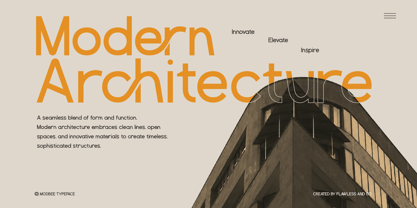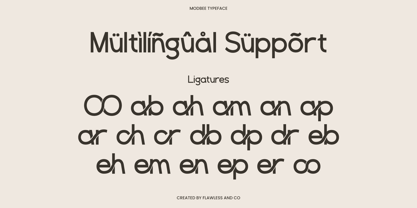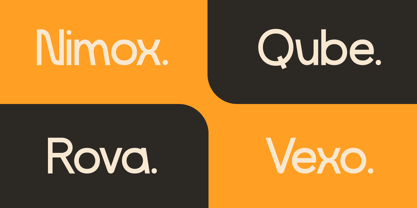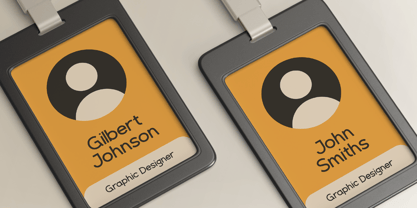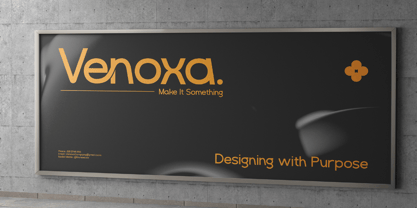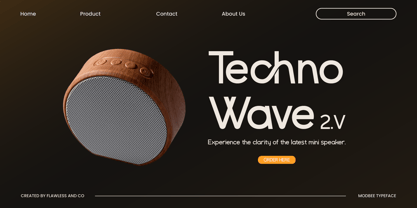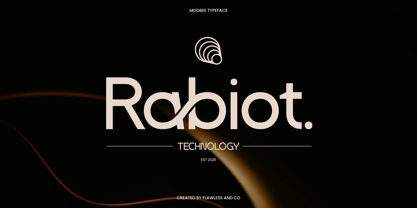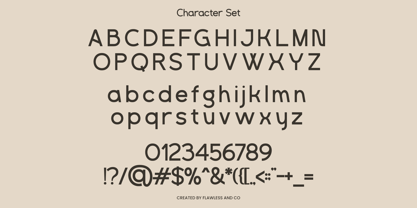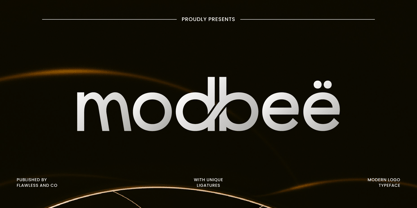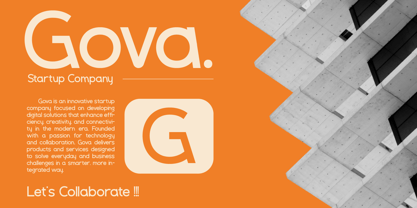
Modbee
von Flawlessandco
Die Schriftfamilie Modbee wurde von Achmad Yani entworfen und von Flawlessandco veröffentlicht. Modbee enthält 1 Stile. Mehr über diese Familie
Modbee is a sleek and modern sans serif typeface, designed with clean lines and a unique ligature style that makes it perfect for contemporary branding. Its balanced letterforms bring a sense of professionalism while keeping a creative touch, making it highly versatile for different design needs. Whether you’re working on logos, product packaging, website headers, posters, or corporate identities, Modbee delivers a modern and stylish look that elevates your design.
Multilingual, Uppercase alphabet A-Z, Lowercase alphabet a-z, Numbers 0-9, Some punctuation, Alternates & Ligatures
Designer: Achmad Yani
Foundry: Flawlessandco